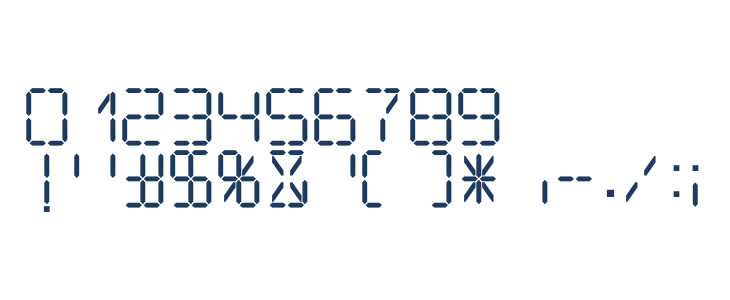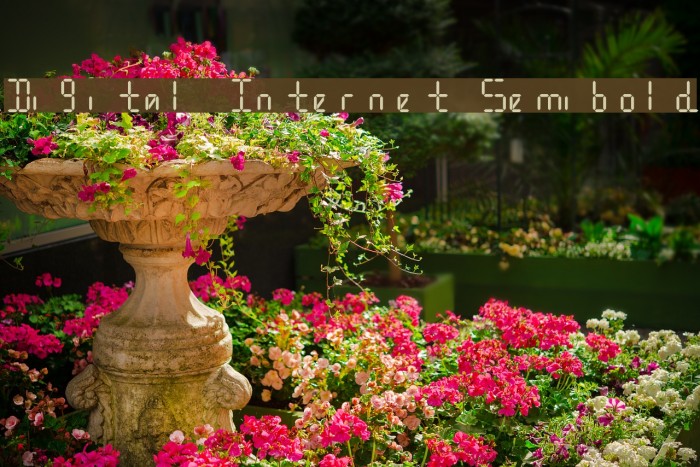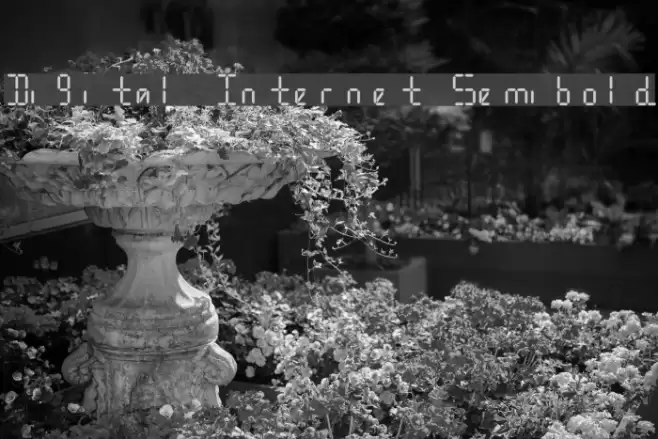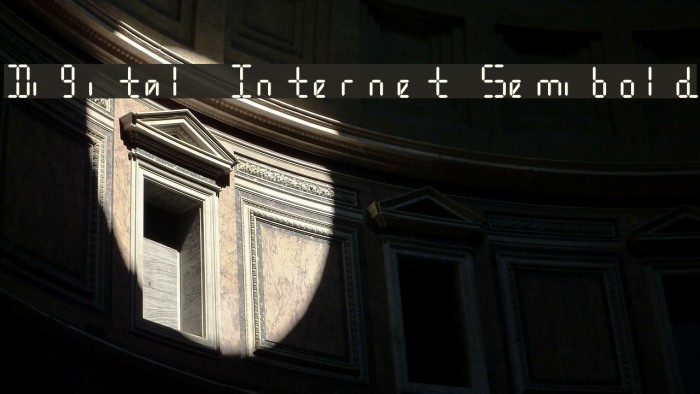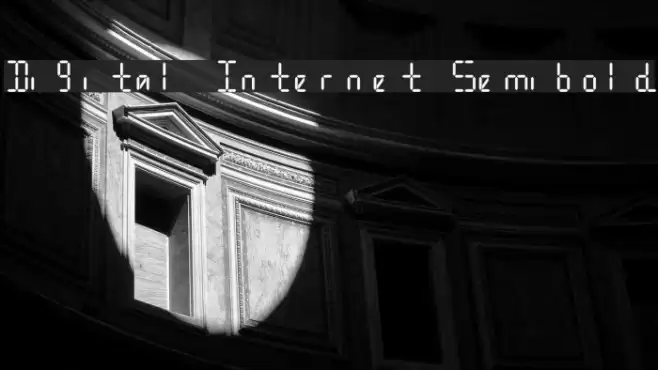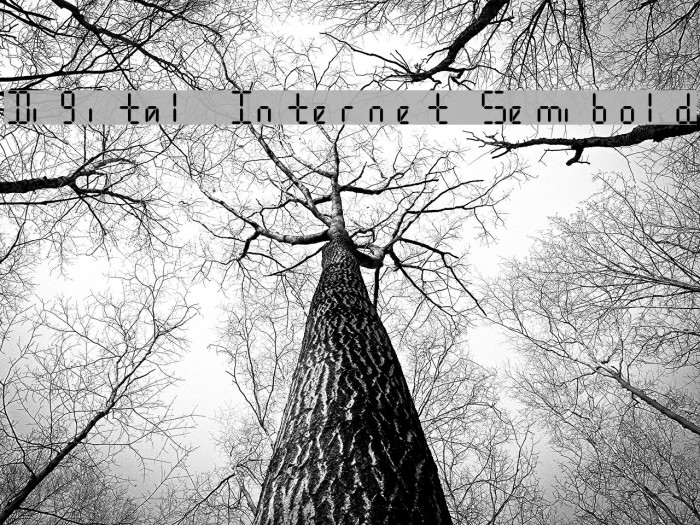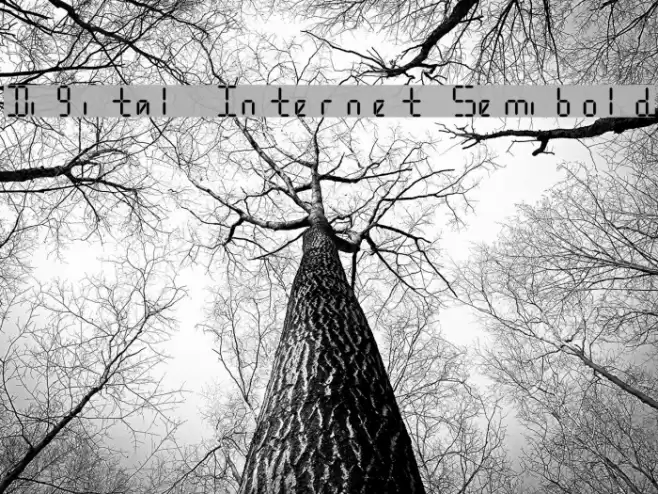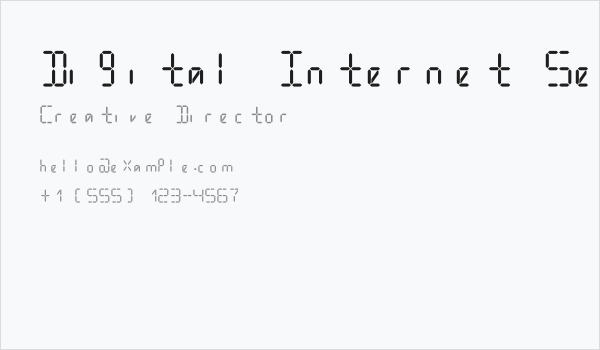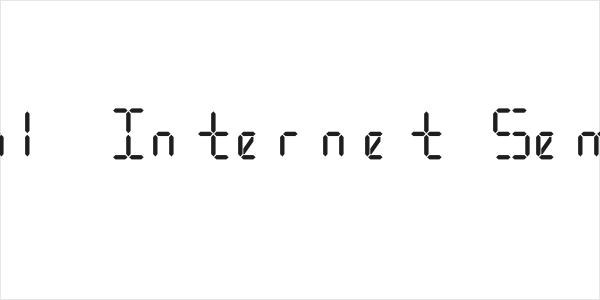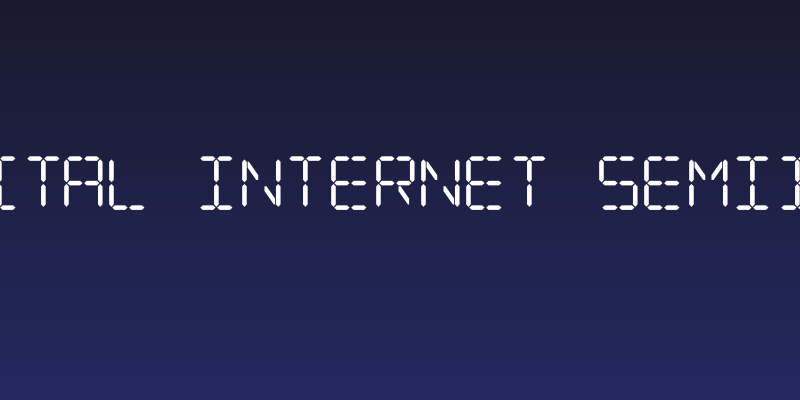
Digital Internet Semibold Font
Digital Internet Semibold Description
This font features a digital, segmented style reminiscent of classic LED displays. Each character is composed of distinct segments, creating a geometric and technical appearance. The uppercase and lowercase letters maintain a consistent design, with angular lines and uniform spacing. Numbers and special characters follow the same segmented pattern, enhancing the cohesive digital aesthetic. The font's design is clean and modern, making it suitable for technology-related projects or any context where a futuristic look is desired.
| Proposed Projects | Ideal for digital interfaces, tech branding, futuristic posters, and electronic-themed designs. |